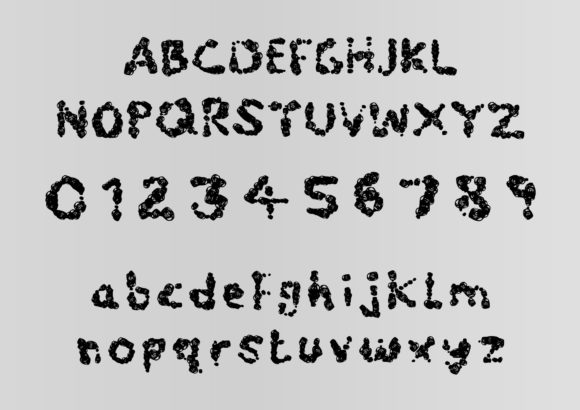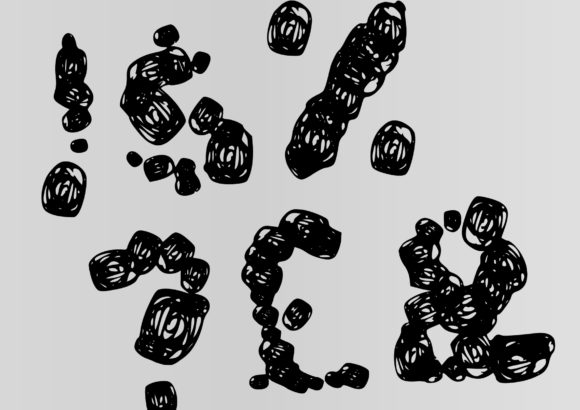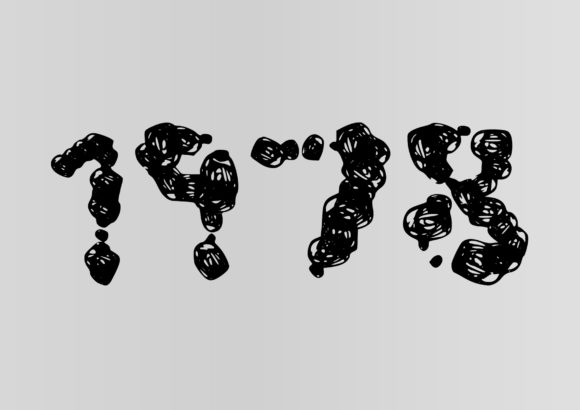
Introducing Dirty Swirl Font: Add a Touch of Edginess to Your Designs
Are you tired of using the same old fonts in your designs? Do you want to add a unique touch to your creative projects? Look no further than the Dirty Swirl Font! This rough swirling font is perfect for designers and crafters who want to give their work an original look. In this article, we’ll dive into the features and benefits of the Dirty Swirl Font, and explore how you can use it to take your designs to the next level.
What is Dirty Swirl Font?
Dirty Swirl is a display font that boasts a rough, swirling design. Its unique and edgy style makes it perfect for adding a touch of personality to your designs. Whether you’re working on a logo, poster, or social media graphic, the Dirty Swirl Font is sure to turn heads. Its irregular shape and swirling patterns give it a handmade, organic feel that’s perfect for designers who want to add a bit of grit to their work.
Key Features of Dirty Swirl Font
- Unique Design: The Dirty Swirl Font features a one-of-a-kind design that’s sure to make your designs stand out.
- Rough and Edgy: The font’s rough, swirling patterns give it a bold and edgy look that’s perfect for designers who want to add a bit of attitude to their work.
- Display Font: The Dirty Swirl Font is a display font, making it perfect for headlines, titles, and other attention-grabbing elements.
Benefits of Using Dirty Swirl Font
So why should you use the Dirty Swirl Font in your designs? Here are just a few benefits:
- Adds Personality: The Dirty Swirl Font adds a unique touch to your designs, giving them a personality that’s all their own.
- Grabs Attention: The font’s bold, edgy design is sure to grab attention and draw the eye.
- Versatile: The Dirty Swirl Font can be used in a variety of design contexts, from logos and posters to social media graphics and more.
- Easy to Pair: The font pairs well with a variety of other fonts, making it easy to use in combination with other typography.
How to Use Dirty Swirl Font
Using the Dirty Swirl Font is easy! Here are a few tips to get you started:
- Use it as a Headline: The Dirty Swirl Font is perfect for headlines and titles, where its bold, attention-grabbing design can shine.
- Pair it with Other Fonts: Try pairing the Dirty Swirl Font with other fonts to create a unique and interesting typography combination.
- Experiment with Colors: The Dirty Swirl Font looks great in a variety of colors, so don’t be afraid to experiment and find the perfect hue for your design.
- Use it in Digital or Print Designs: The Dirty Swirl Font can be used in both digital and print designs, making it a versatile addition to your typography toolkit.
Who is Dirty Swirl Font for?
The Dirty Swirl Font is perfect for designers and crafters who want to add a unique touch to their work. This includes:
- Graphic Designers: Graphic designers who want to create bold, attention-grabbing designs will love the Dirty Swirl Font.
- Crafters: Crafters who want to add a personal touch to their handmade projects will appreciate the font’s unique, handmade feel.
- Social Media Managers: Social media managers who want to create eye-catching graphics will find the Dirty Swirl Font to be a valuable addition to their typography toolkit.
- Marketer: Marketers who want to create bold, attention-grabbing headlines will love the Dirty Swirl Font.
In conclusion, the Dirty Swirl Font is a unique and versatile display font that’s perfect for designers and crafters who want to add a touch of edginess to their work. With its rough, swirling design and bold, attention-grabbing style, this font is sure to turn heads. Whether you’re working on a logo, poster, or social media graphic, the Dirty Swirl Font is a great choice. So why not give it a try and see how it can elevate your designs?